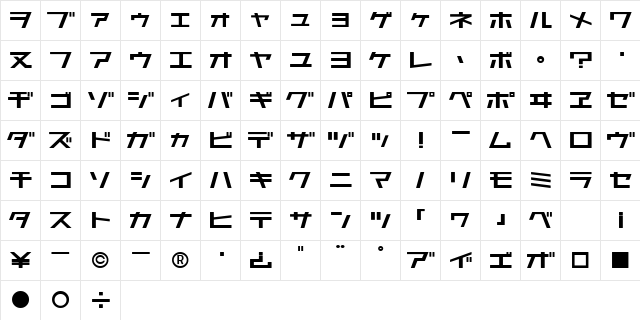
AstraKfsb07MediumT Regular
Design Context for AstraKfsb07MediumT Typeface
AstraKfsb07MediumT offers clean, dependable letterforms without strong stylistic allegiance, making it a practical choice for designers who need flexibility.